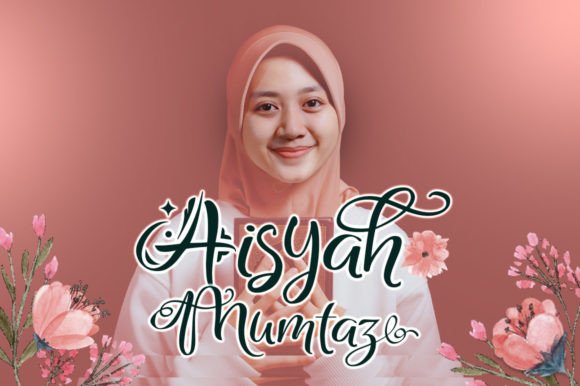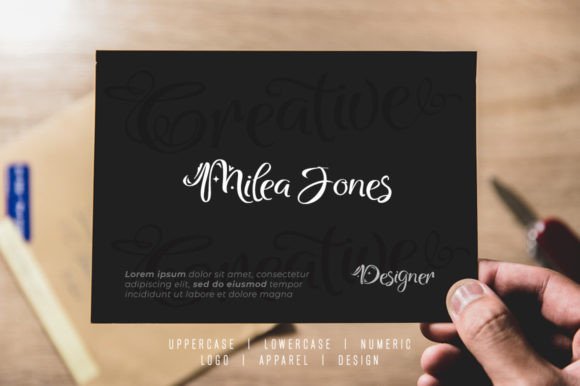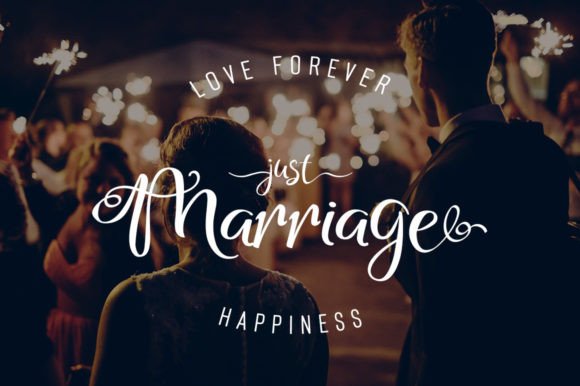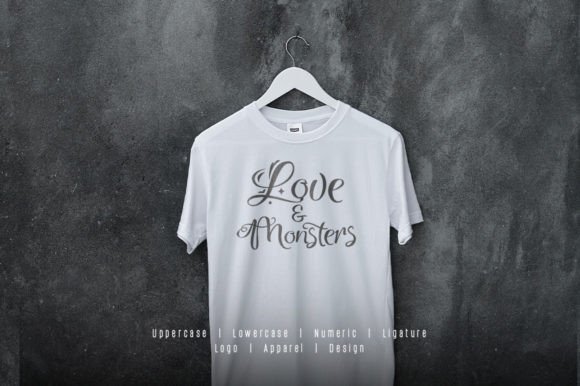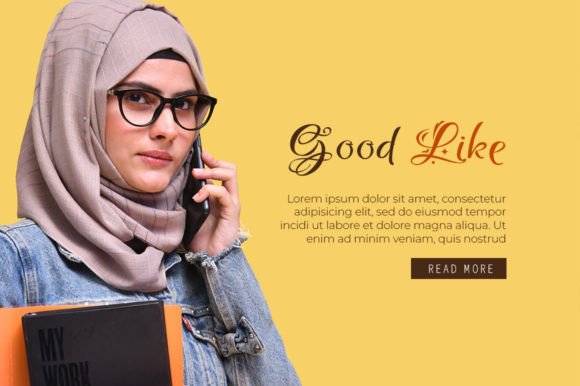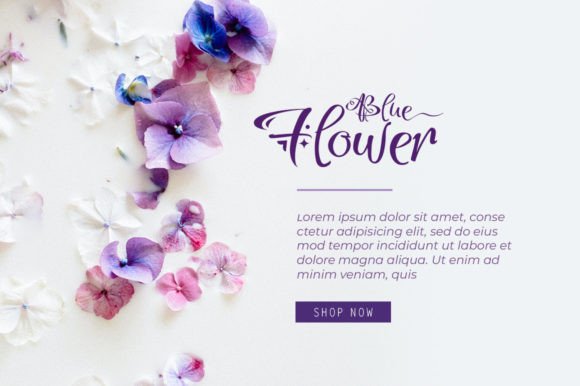
Introduction to Shafeera Font
Have you ever found yourself in the middle of a creative project, staring at a blank canvas, searching for that perfect font to bring your design to life? It’s a feeling we’ve all experienced at some point, and it’s what makes the discovery of a high-quality font like Shafeera Font so exciting.
As a designer, you know the importance of having a reliable design resource at your fingertips. A font like Shafeera Font can be a game-changer, offering a unique and creative touch to your projects. From posters and logos to music covers and clothing designs, Shafeera Font is the perfect addition to any design endeavor.
Key Features of Shafeera Font
- High-quality, elegant design ideal for creative projects and design resources.
- Unique, cursive script style with intricate details, perfect for adding a touch of sophistication to any design project.
Honest Review: Shafeera Font
I recently came across the Shafeera Font, and I must say it’s a great addition to any designer’s toolkit. With its high quality and unique design, it’s perfect for creative projects that require a touch of elegance.
One of the standout features of the Shafeera Font is its transparent background, which makes it super easy to work with. Whether you’re creating a logo, icon, or graphic, this font is a great design resource to have.
- Unique and creative design that adds a touch of elegance to any project
- High quality and crisp typography
- Transparent background makes it easy to work with
- Limited character set (only includes uppercase and lowercase letters)
- No support for special characters or accents
- Not suitable for large blocks of text
Overall, I’m impressed with the Shafeera Font and think it’s a great addition to any designer’s toolkit. While it may have some limitations, its unique design and high quality make it a valuable resource for any creative project. ⚠️
Alternatives to Shafeera Font
The Great Vibes Font is a high-quality, elegant script font perfect for creative projects that require a touch of sophistication. It’s ideal for designs with a transparent background, making it great for wedding invitations, posters, and other promotional materials. Great Vibes Font is a great alternative to Shafeera Font when you need a more refined and luxurious look.
The Carolyna Pro Font is a modern and stylish font that’s perfect for designers looking for a high-quality design resource. It’s great for use in creative projects such as logos, branding materials, and marketing campaigns. Carolyna Pro Font is a good alternative to Shafeera Font when you need a more contemporary and edgy look.
The Alex Brush Font is a beautiful and elegant script font that’s perfect for designers looking for a high-quality font with a personal touch. It’s great for use in creative projects such as wedding invitations, greeting cards, and other special occasions. Alex Brush Font is a good alternative to Shafeera Font when you need a more traditional and classic look.